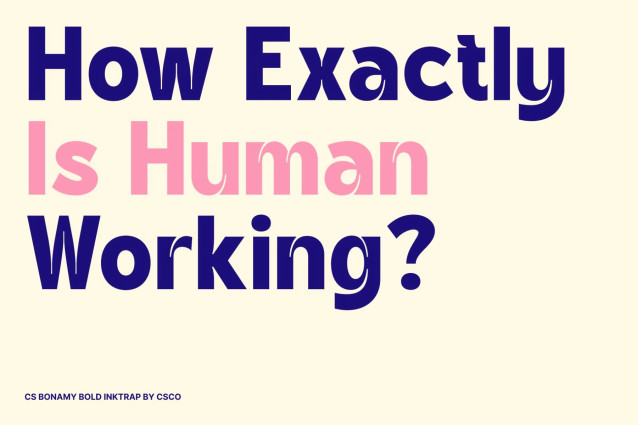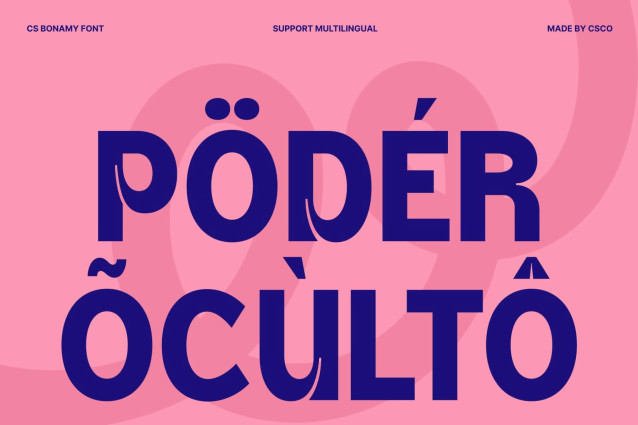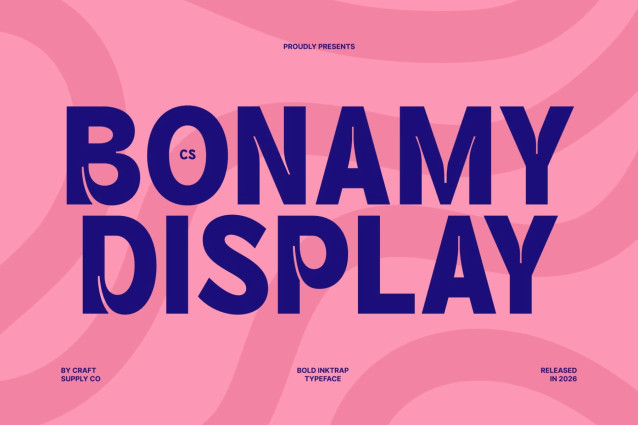
CS Bonamy – Bold Display Sans Serif Font: Where Playful Inktraps Meet Urban Energy
Wide Geometric Letterforms with Expressive Character
This is a bold display sans serif font featuring wide geometric letterforms, rounded corners, and open counters that create a confident yet approachable appearance. Its extra-bold structure delivers strong visual impact, while the balanced proportions ensure clarity and versatility in large display settings. The result is typography that feels energetic, modern, and full of personality.
Playful Inktraps with Contemporary Style
This font transforms a functional typographic feature into a defining visual element. These distinctive cut-ins add rhythm, depth, and uniqueness to each character while enhancing readability. Combined with its rounded geometry, the inktraps give the font a playful, modern aesthetic that feels fresh and memorable.